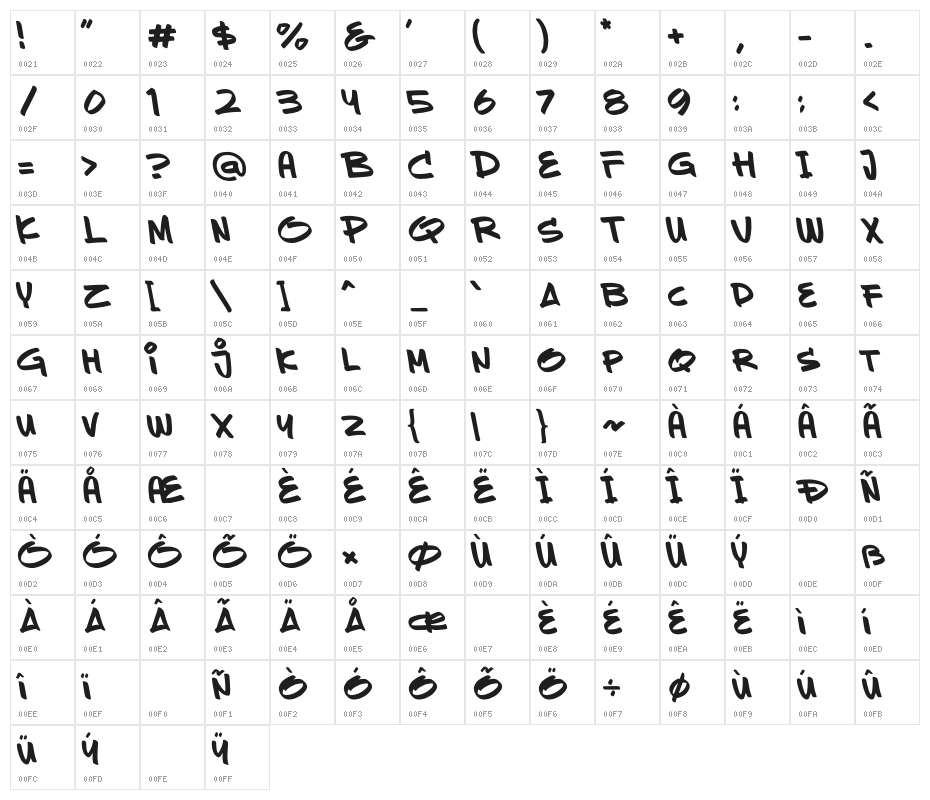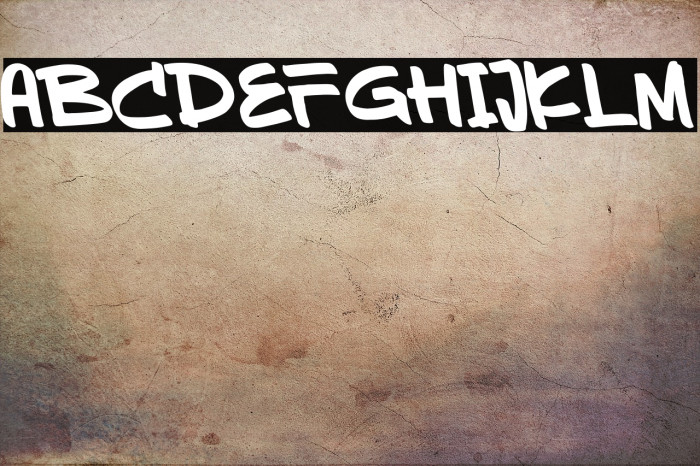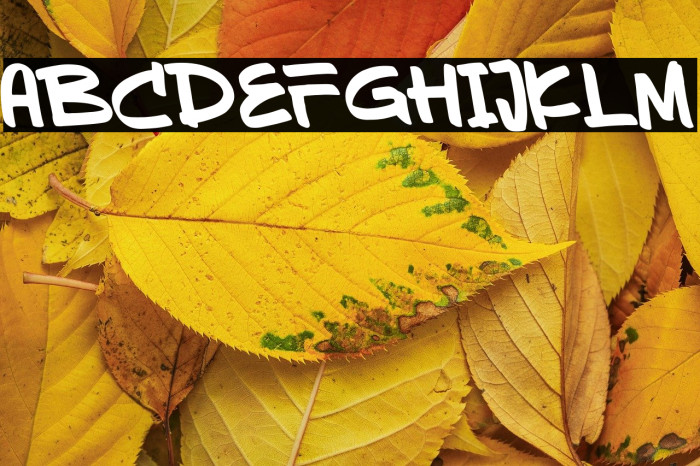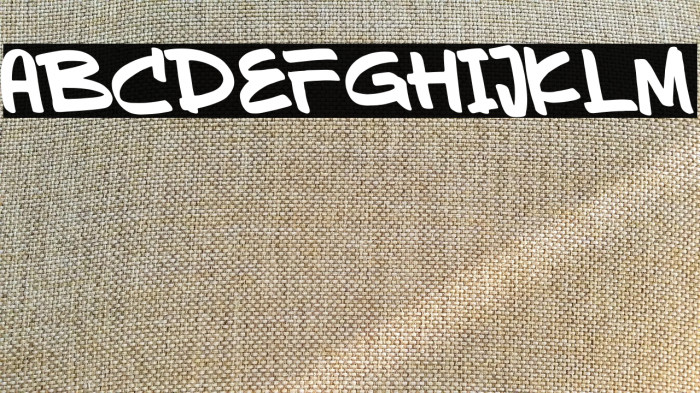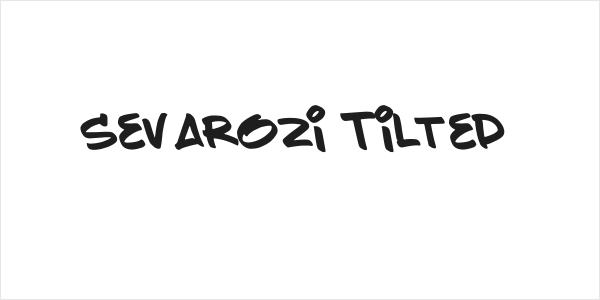
Sevarozi Tilted Font
Sevarozi Tilted Description
This font features a bold, playful style with a slightly tilted orientation, giving it a dynamic and energetic appearance. The characters are rounded with a consistent stroke width, contributing to a friendly and approachable look. The uppercase and lowercase letters maintain a uniform height, enhancing readability. The numbers and special characters are designed to match the overall style, ensuring a cohesive appearance across all text elements. This font is ideal for projects that require a fun and informal touch.
| Overall Style | Playful, Energetic |
| Proposed Projects | Perfect for children's books, playful branding, posters, and informal invitations. |